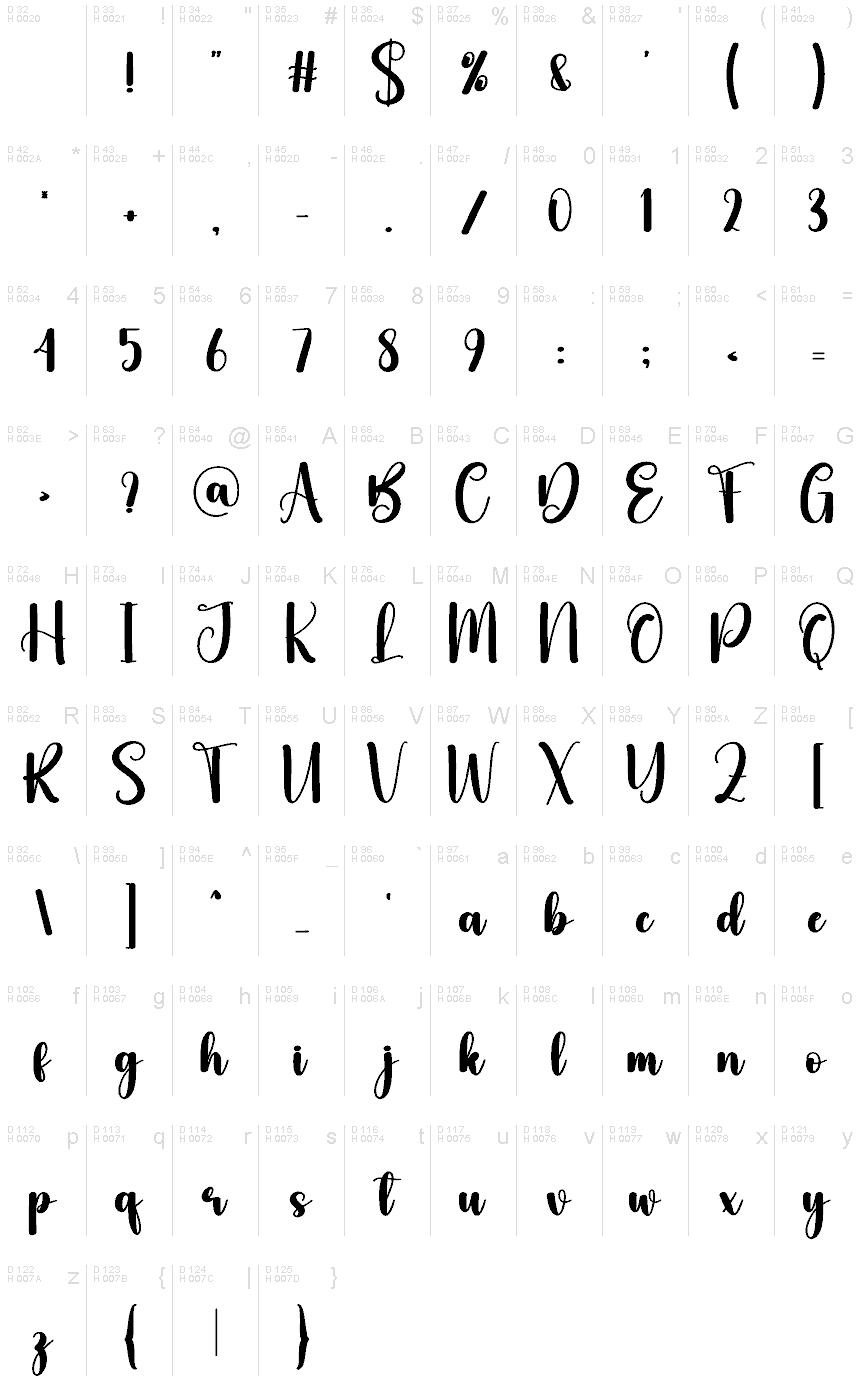
Religion
Religion font by Scratchones is a free brush font that exudes elegance and fluidity. Its script style, combined with a modern touch, offers an approachable artistic flair perfect for standing out from the normal sans and serifs. Perfectly smart yet casual, it shines in designs with less formality but a strong creative identity.
Use Religion in poster designs, apparel prints, packaging labels as well as other branding materials like company logos and stationery products. Use it on Instagram quote posts to catch attention or use it in watercolor print artworks that demand visibility.